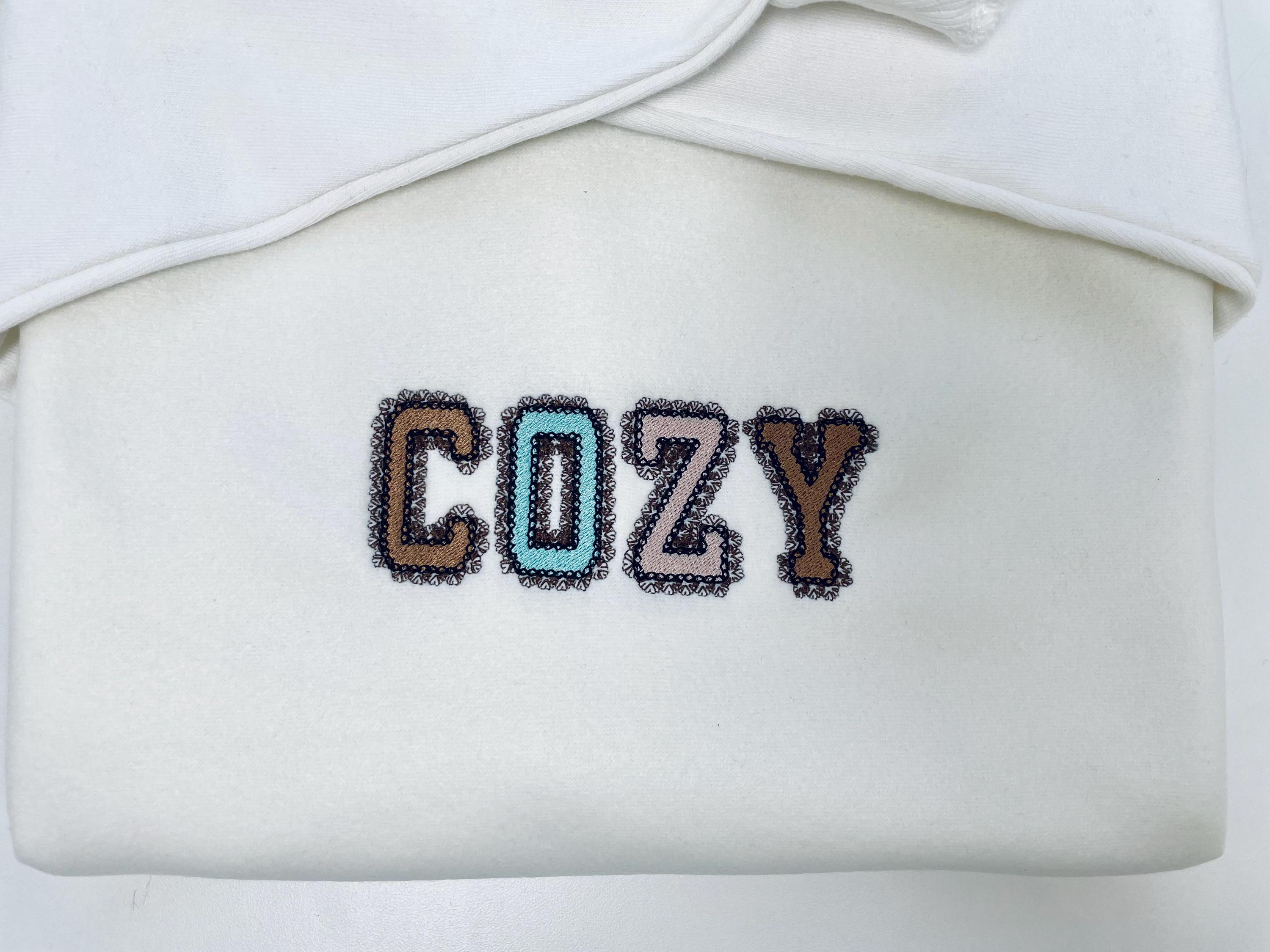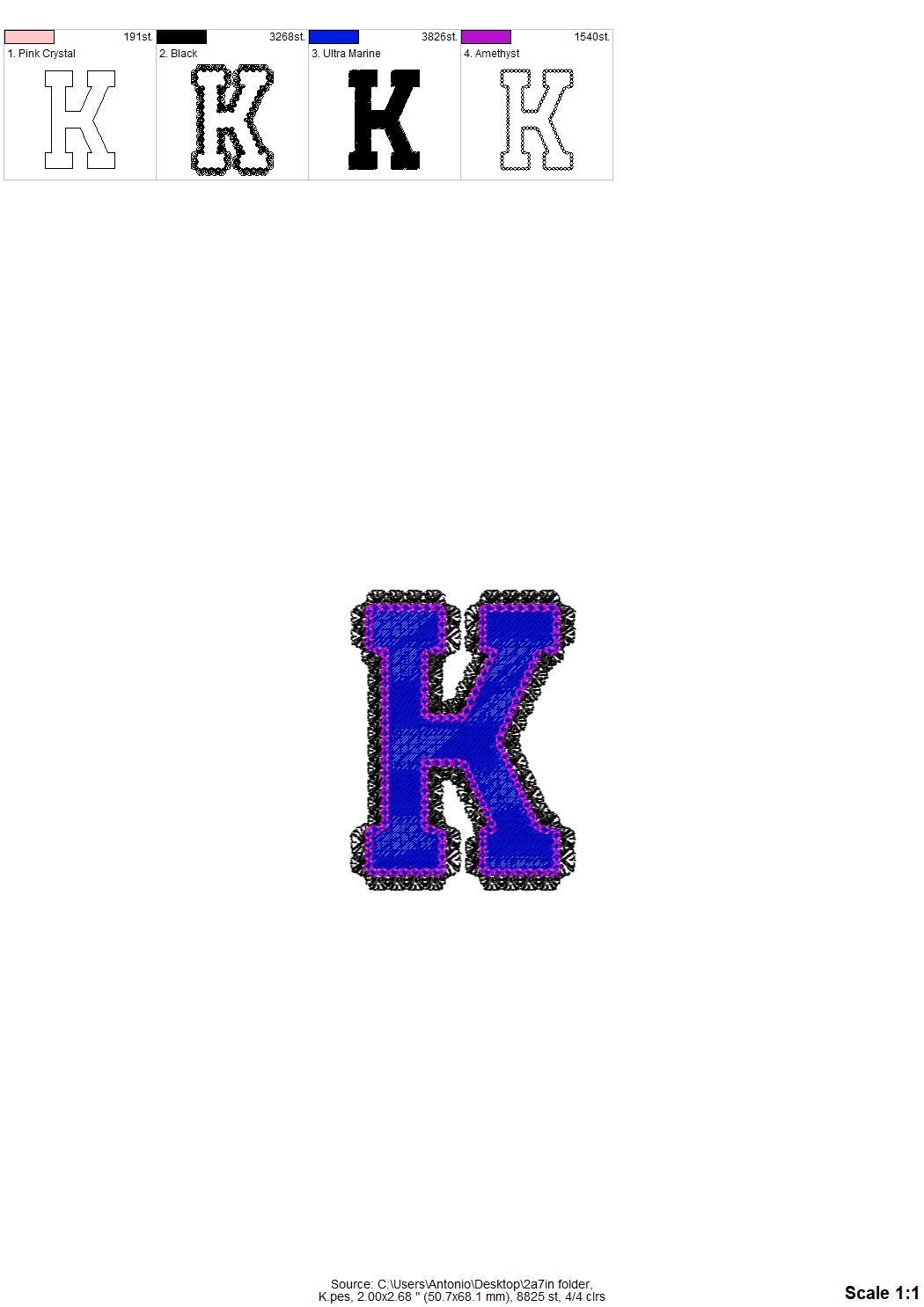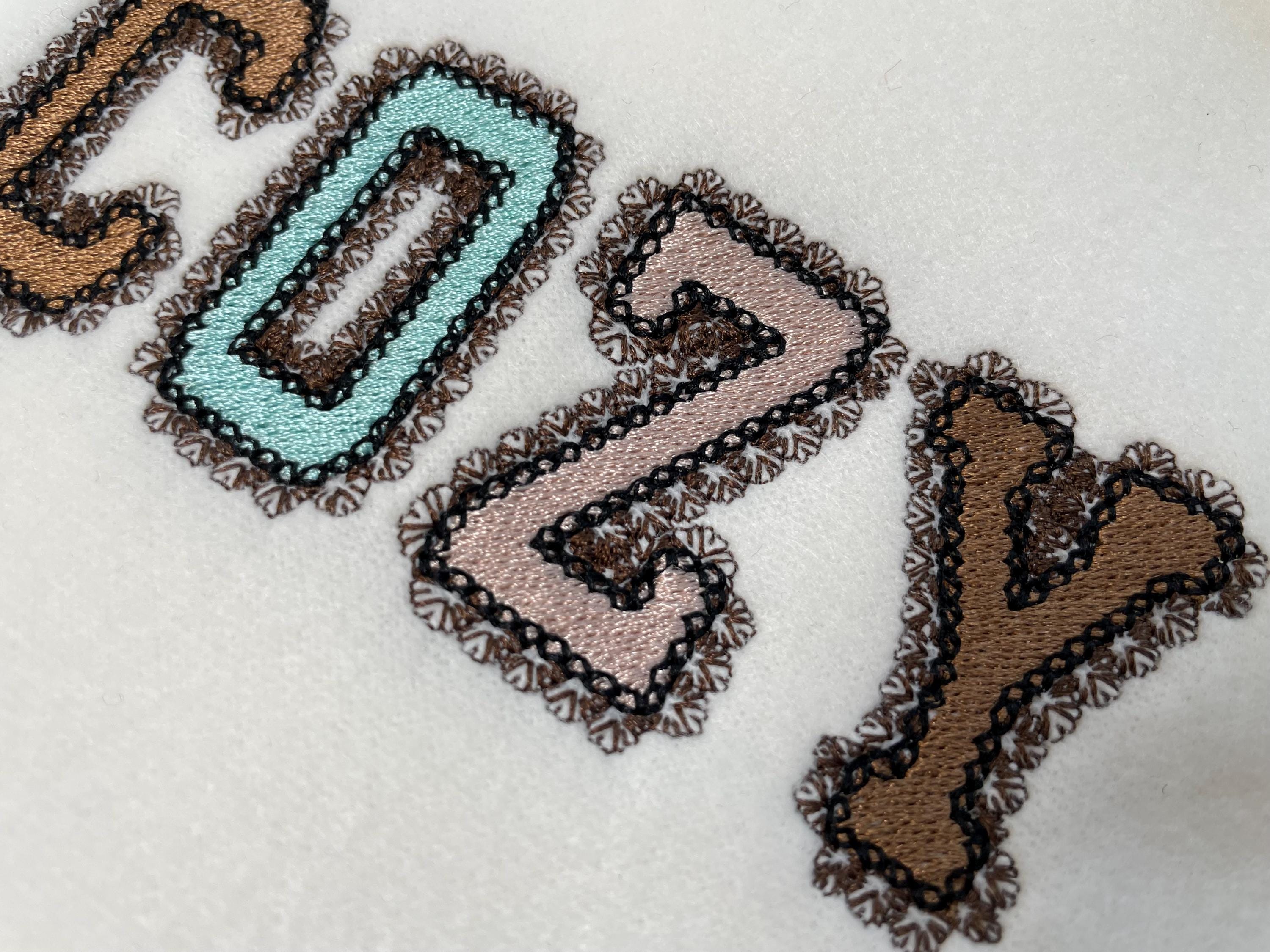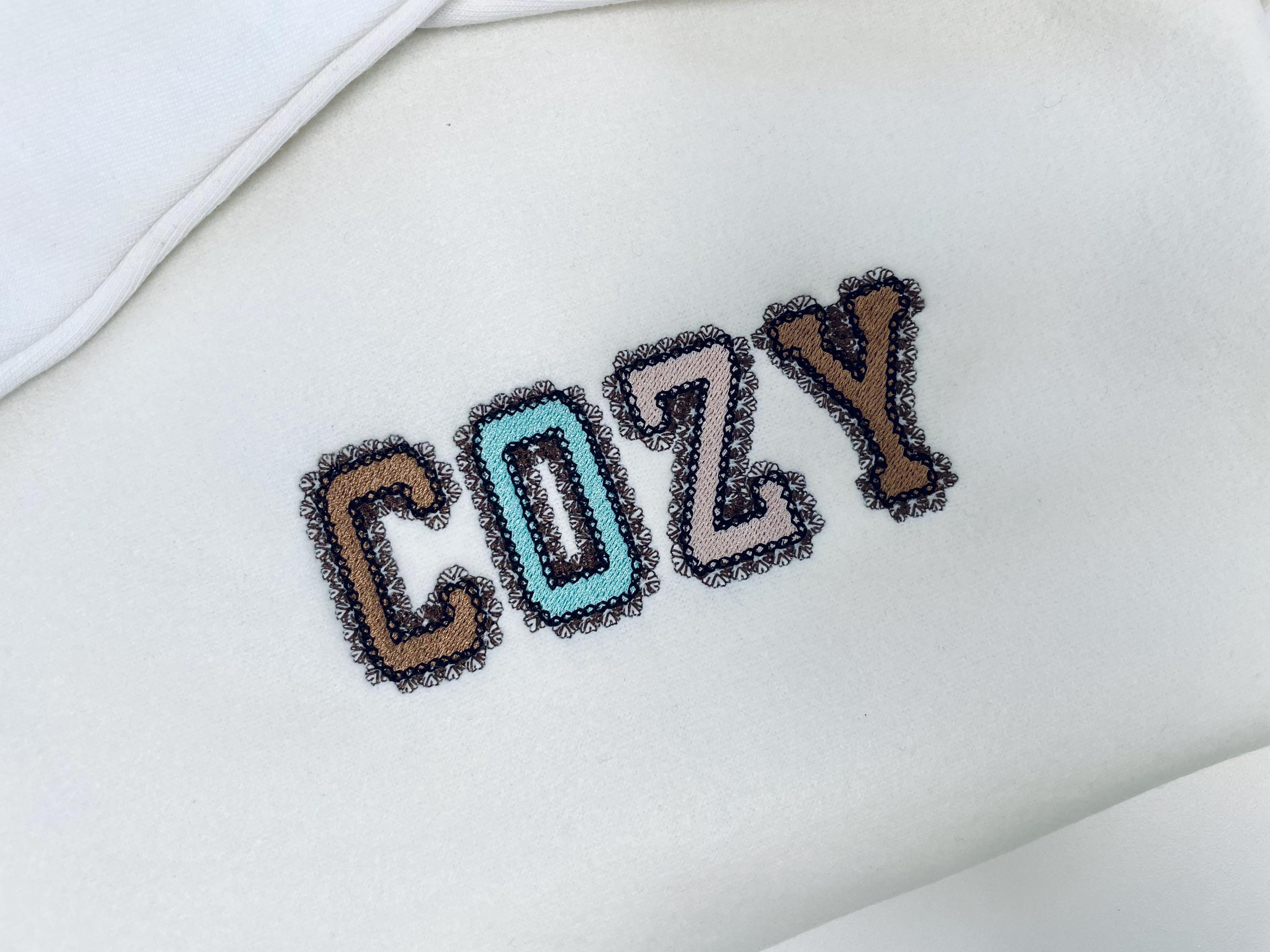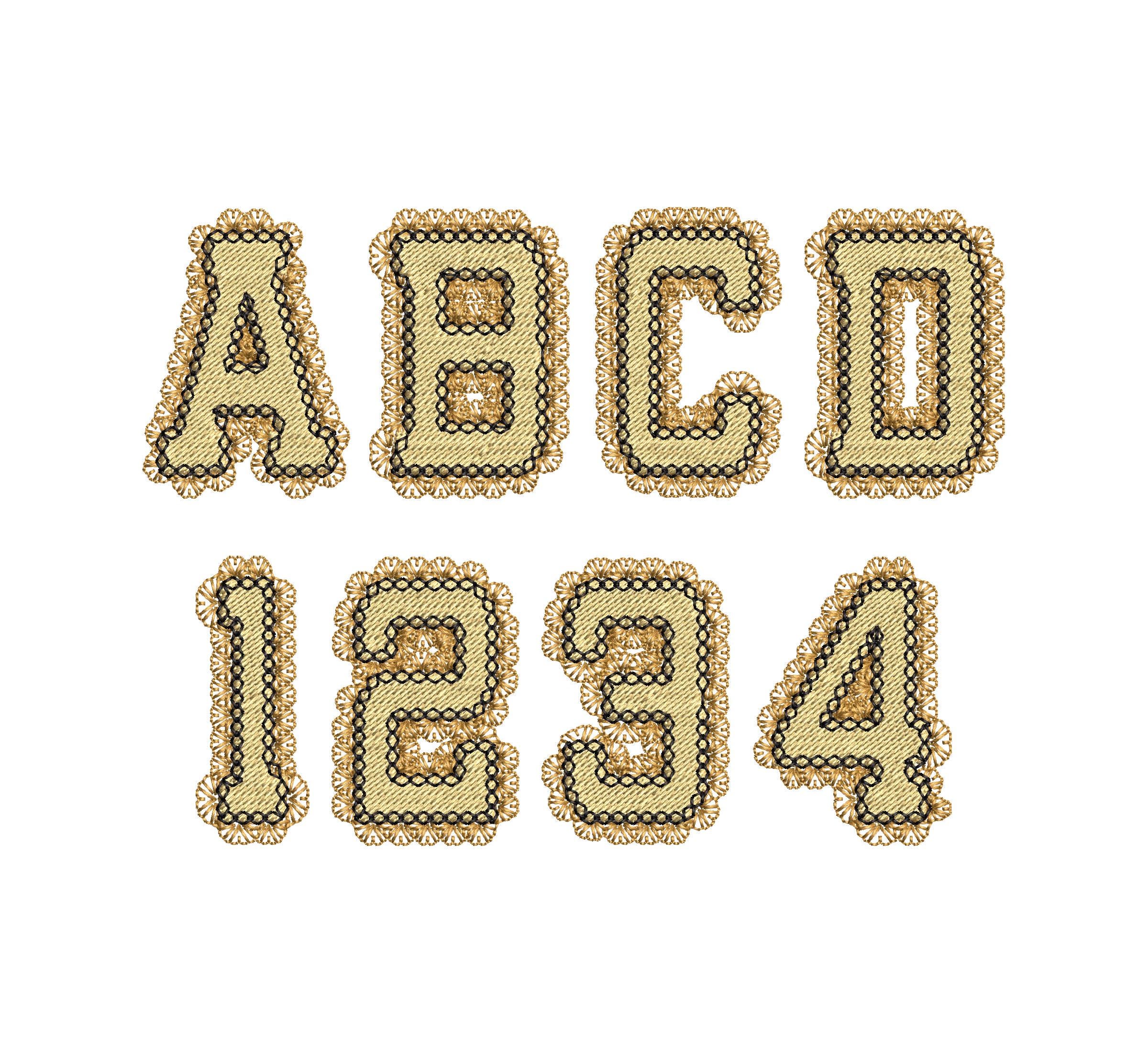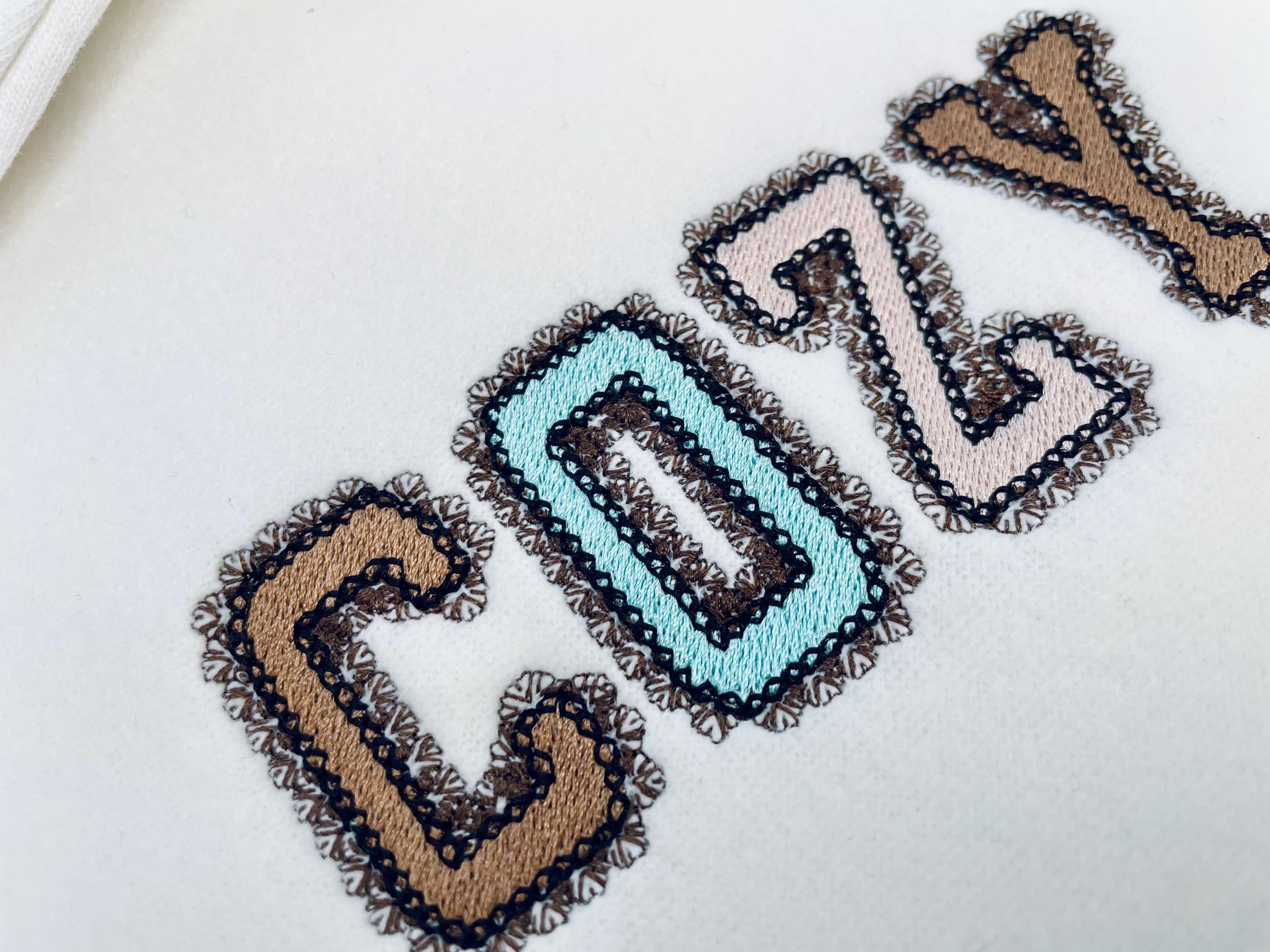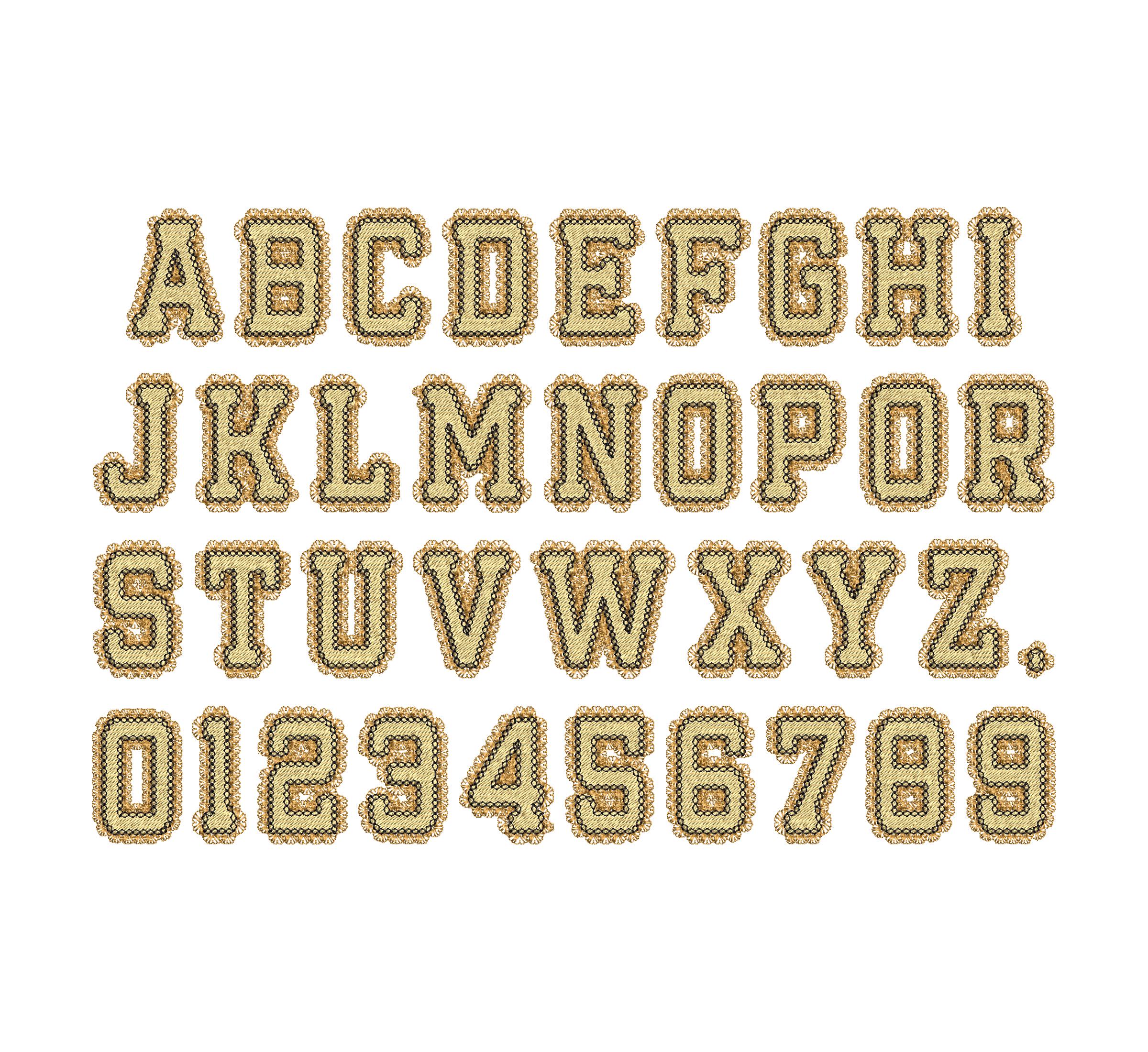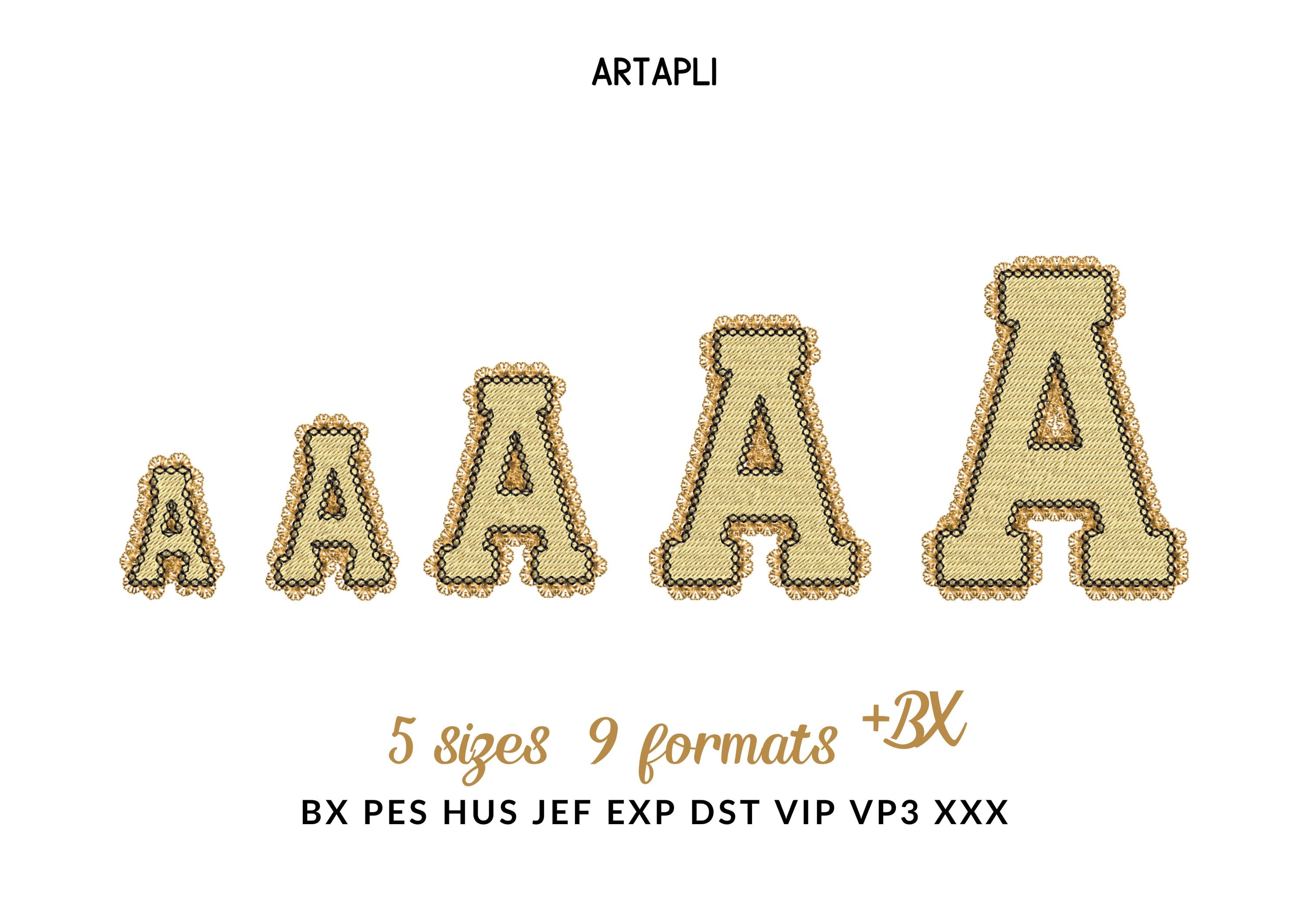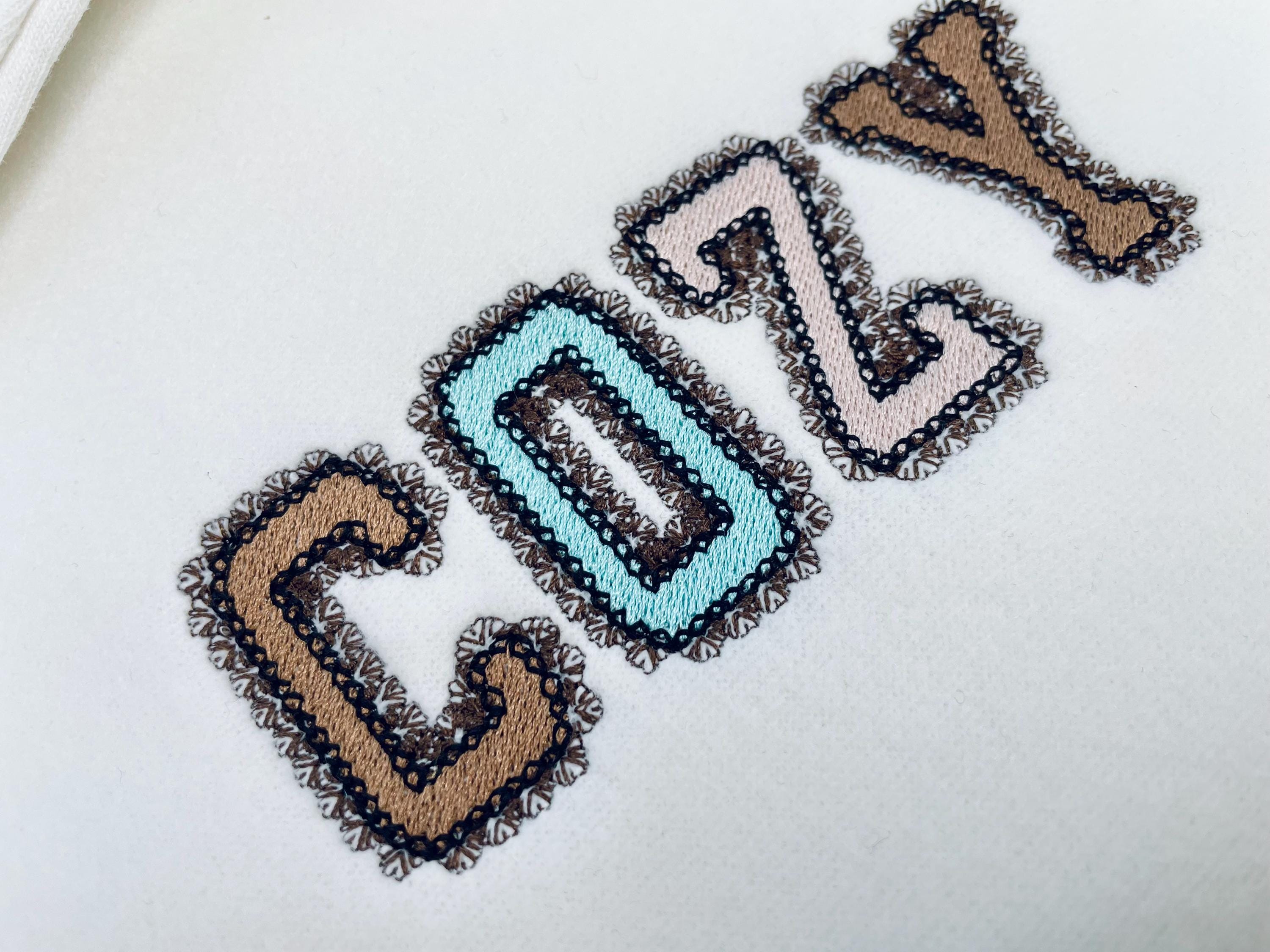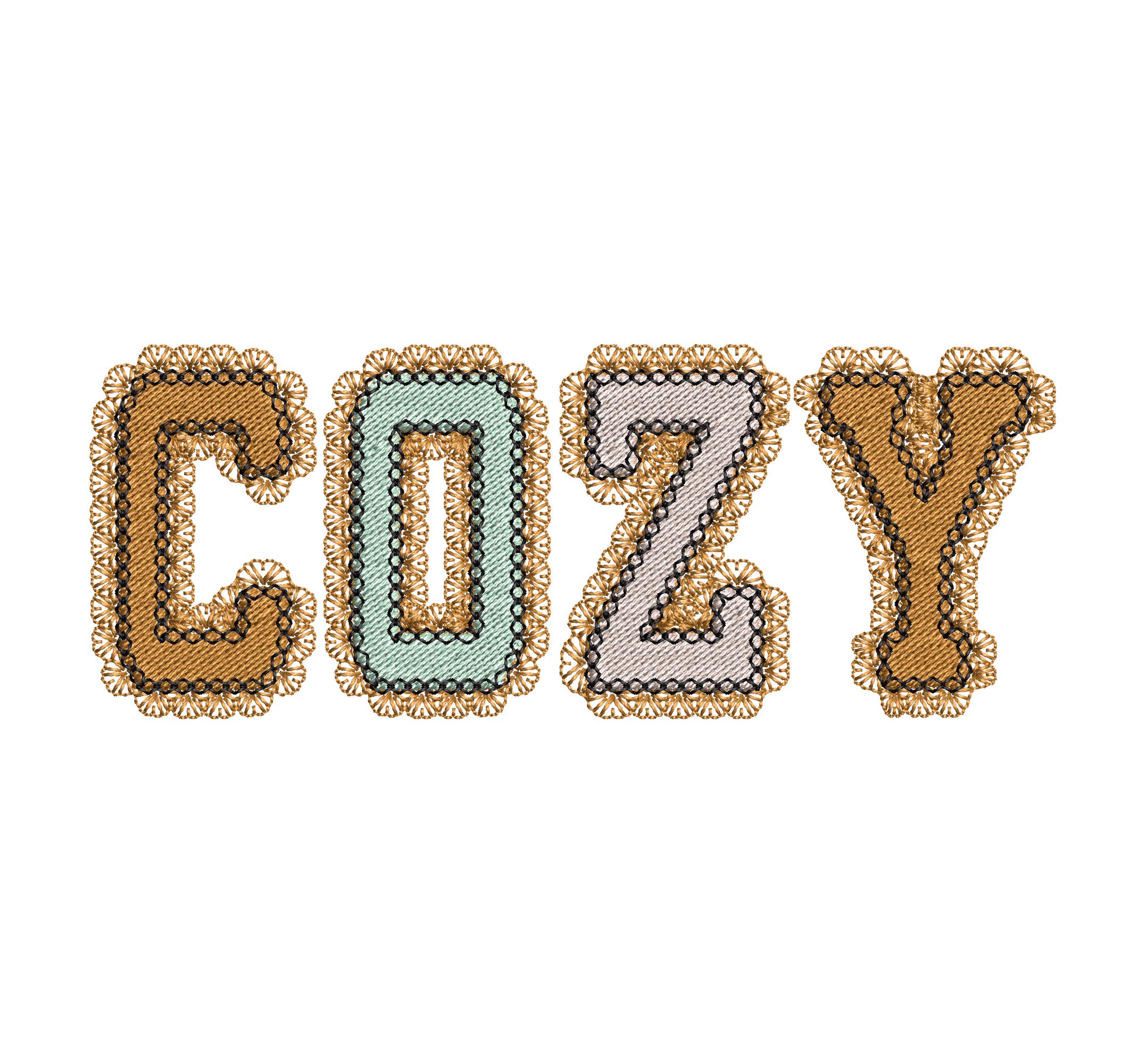
Lace Edge FONT Cozy fill stitch lace effect and outline Girly Alphabet Monogram machine embroidery designs mini sizes 1.4 up to 3.2 inch
Lace edge is a part of the design. Stunning effect!